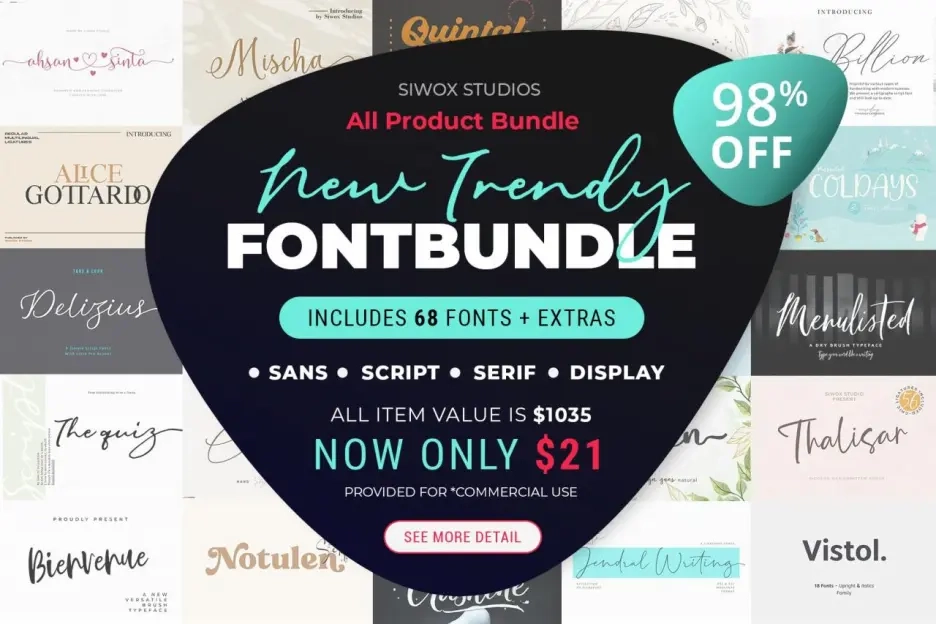
Introducing the New Trendy Fonts Bundle + Extras, a carefully curated collection of modern and stylish fonts designed to elevate your creative projects. This bundle includes a variety of font styles, from elegant serifs to bold sans-serifs, ensuring you have the perfect typeface for any occasion.
- Multiple font styles: serif, sans-serif, script, and display
- Various weights: light, regular, bold, and extra bold
- Unique extras such as ligatures and alternate characters
Each font in this bundle is crafted with attention to detail, providing a professional look for both print and digital applications. The diverse styles allow for creative flexibility, making it suitable for branding, logos, web design, and user interfaces.
- Utilize different weights to create visual hierarchy in your designs.
- Incorporate ligatures for a more sophisticated text appearance.
- Experiment with pairing different font styles for unique branding solutions.